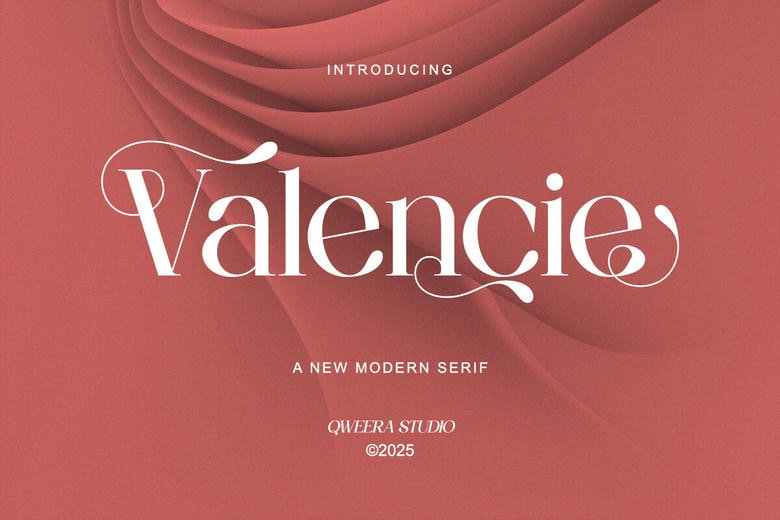
Valencie Font
Valencie is a serif typeface that is elegant and combines the timeless romance and the modern style with luxury. Its decorative swashes and elegant letterforms suit just about any wedding stationery, editorial headlines and luxury brand identity. Valencie is a carefree sophistication and poetic creativity to any creative project.
Valencie Serif Font